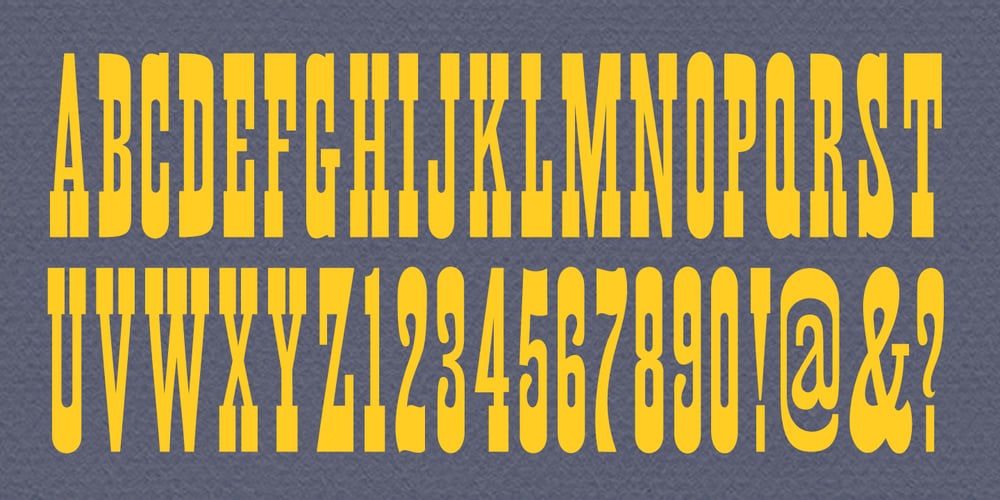
MPI French Antique Font Family was designed by William Hamilton Page and published by mpressInteractive. MPI French Antique contains 1 styles and family package options. French Antique was first shown in the specimen books of William H. Page & Company in 1869. The font is extremely tall and thin, with serifs taller than many character’s widths. Lines are straight and clean with no fuss. French Antique can fit a lot of headline into a small space.